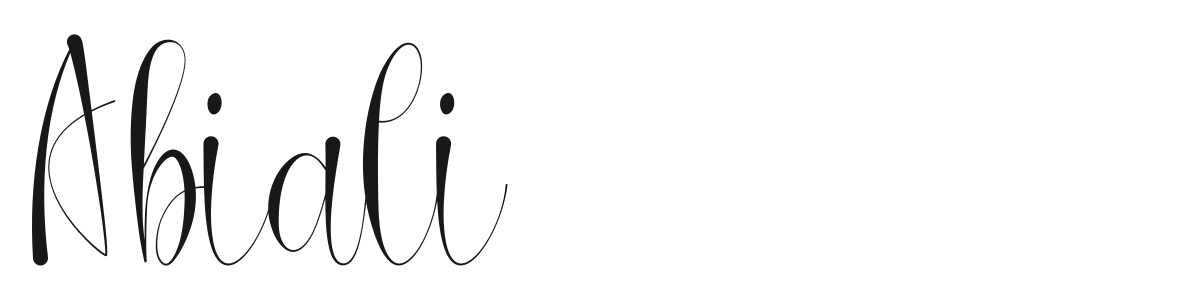
Abiali
Abiali is a flowing formal script with deep calligraphic roots, built on the high stroke contrast and looping elegance of copperplate tradition. Long swash ascenders and descenders weave together to create an ornate, romantic texture that feels at home on wedding invitations, packaging, and luxury branding. The hairline strokes are delicate enough to feel refined without losing legibility at display sizes.